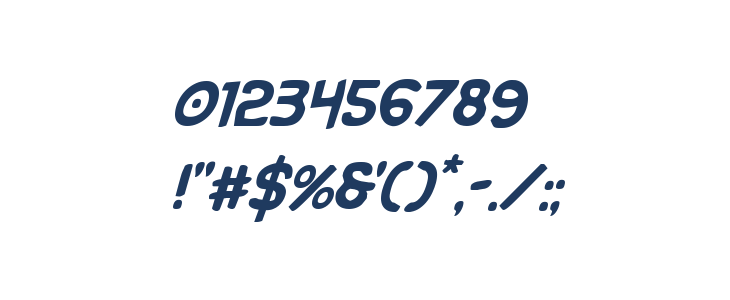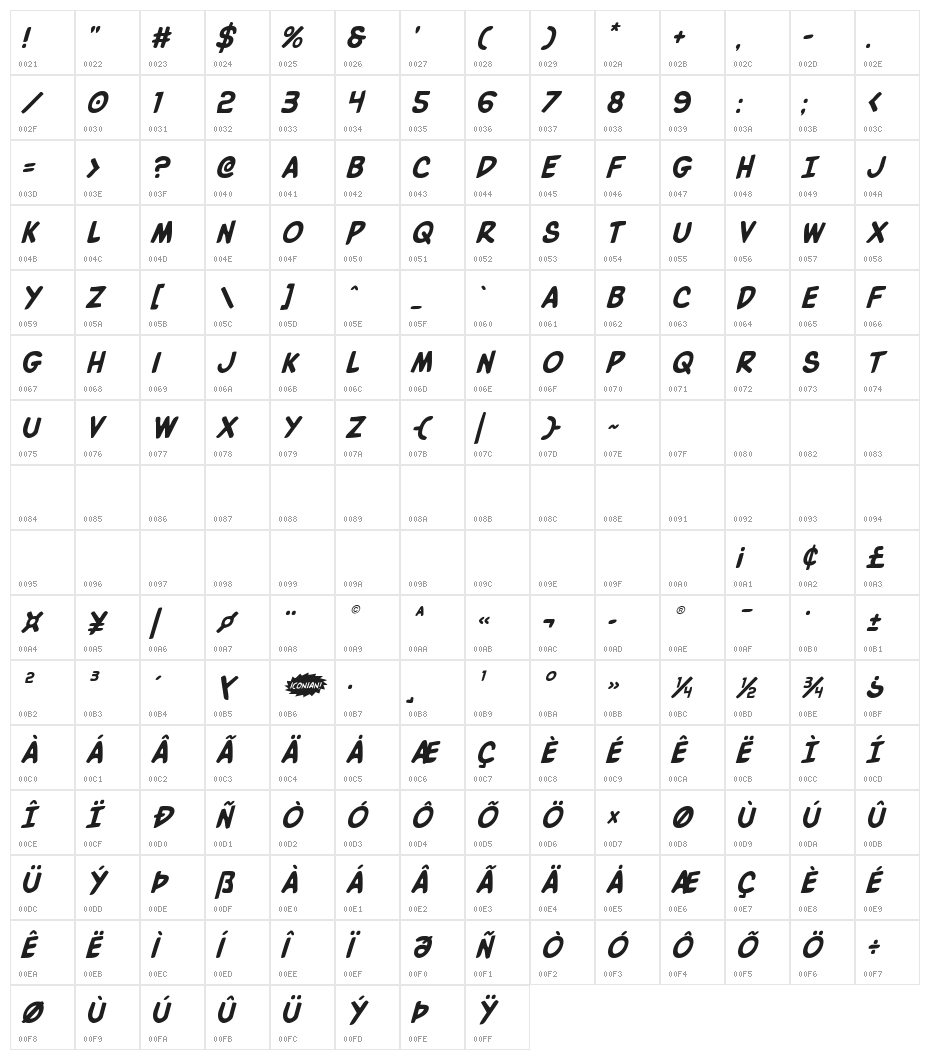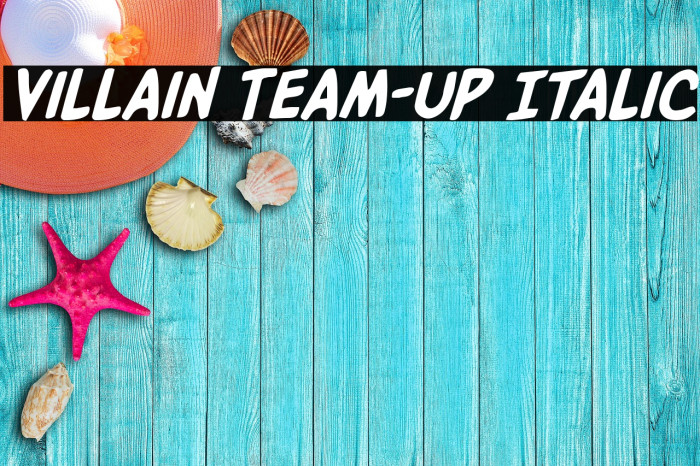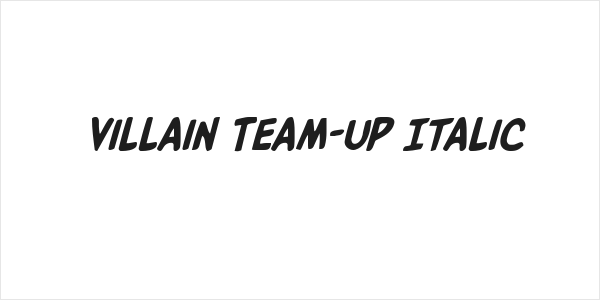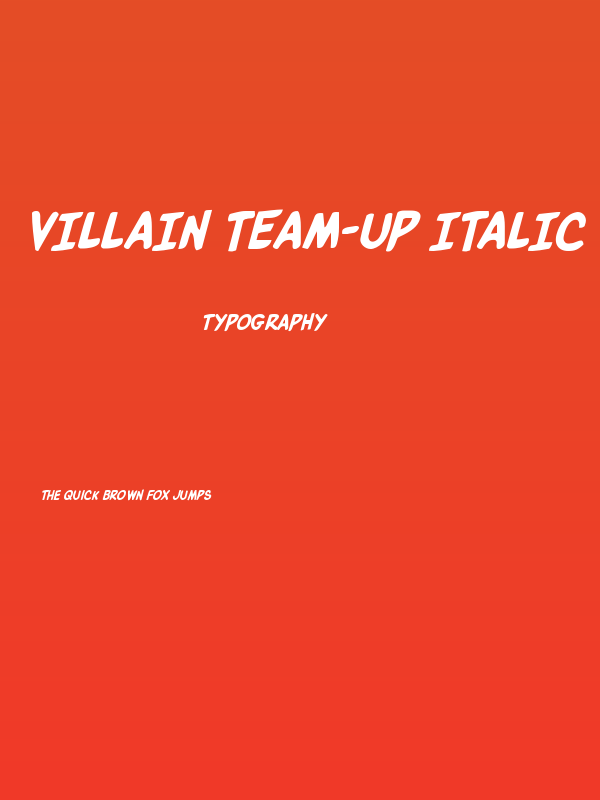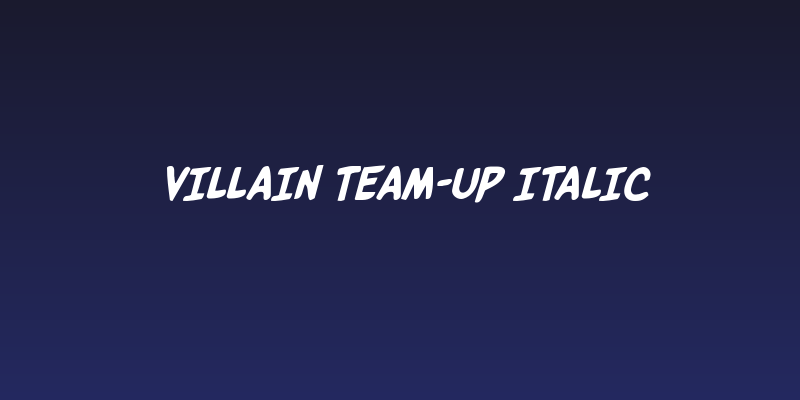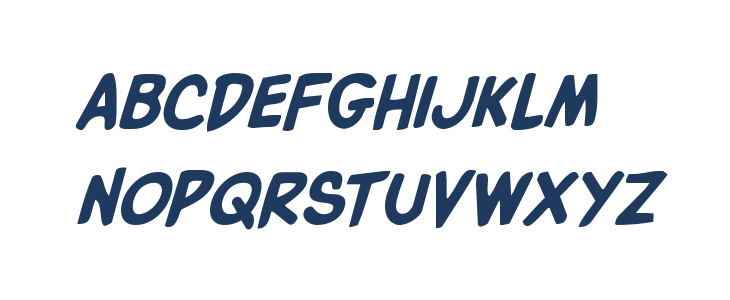
Villain Team-Up Italic Font
Villain Team-Up Italic Description
This font features a bold, italicized style with a strong presence. The characters are slightly slanted, giving a sense of movement and dynamism. The strokes are thick and consistent, providing a robust and impactful appearance. The overall design is clean and modern, with a touch of playfulness due to the italic slant. The numbers and special characters maintain the same bold and italic characteristics, ensuring uniformity across all glyphs. This font is highly legible and stands out, making it suitable for various design needs.